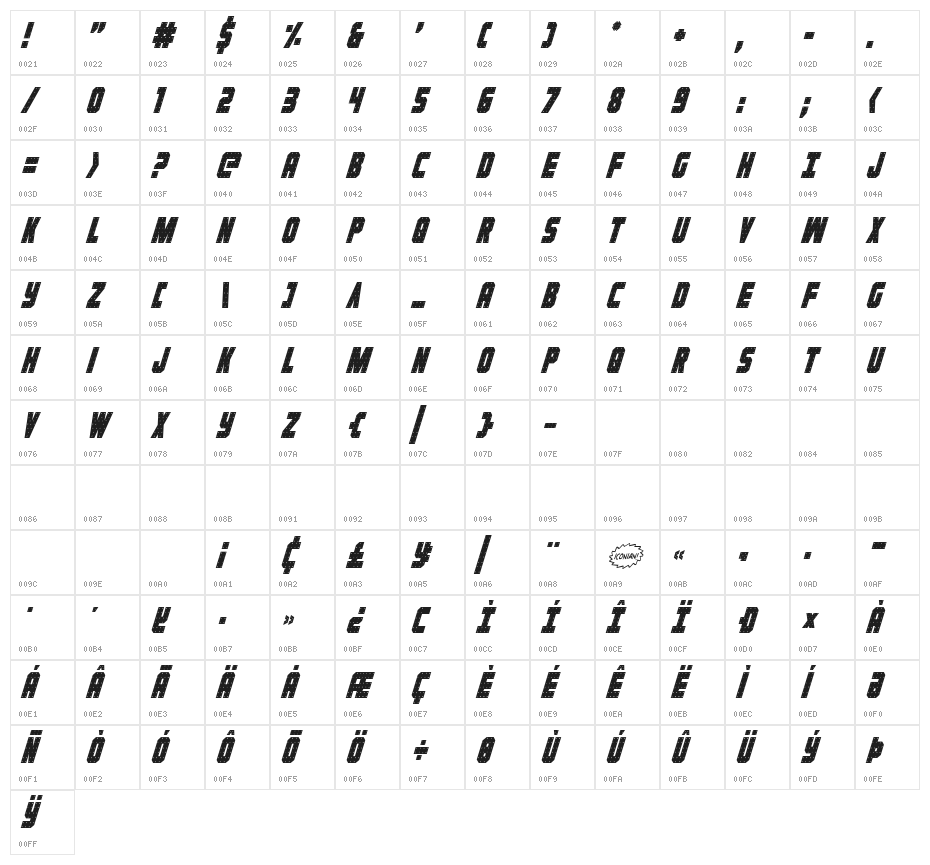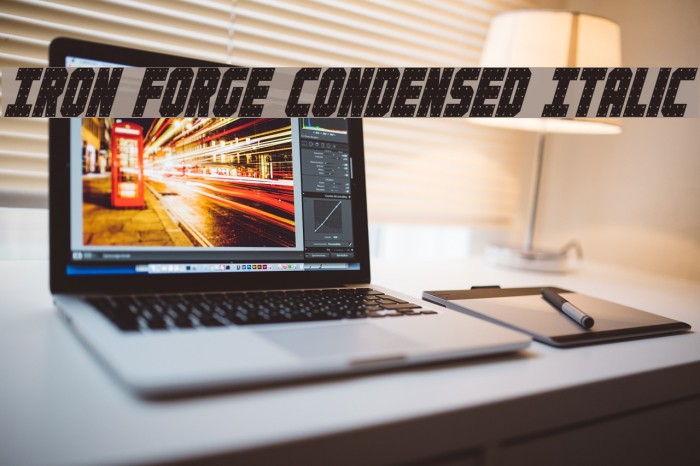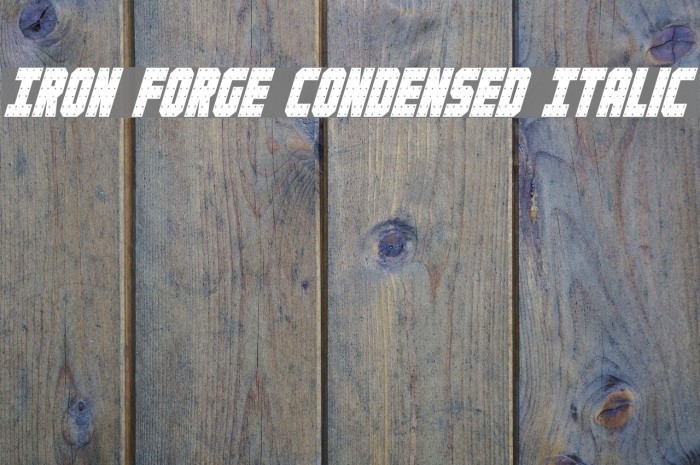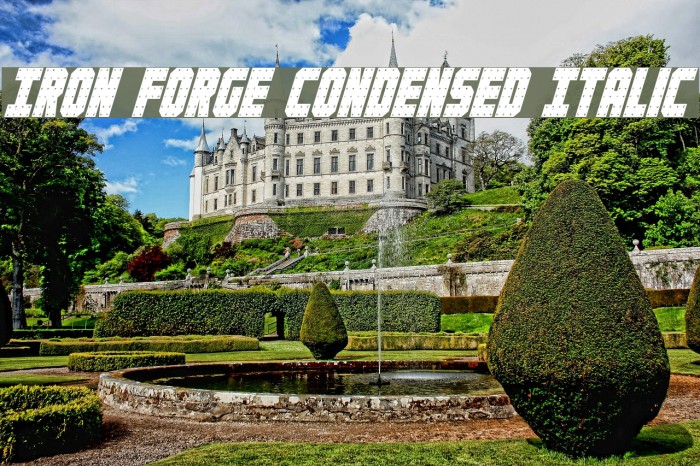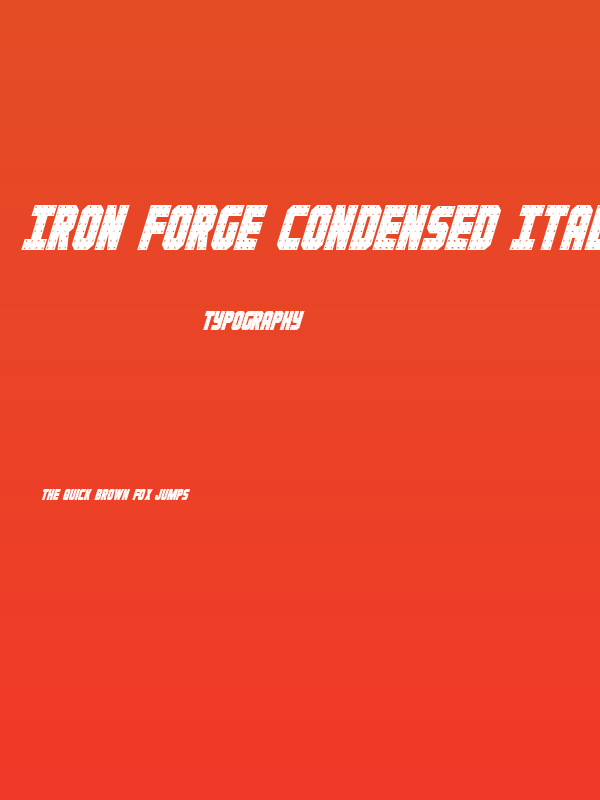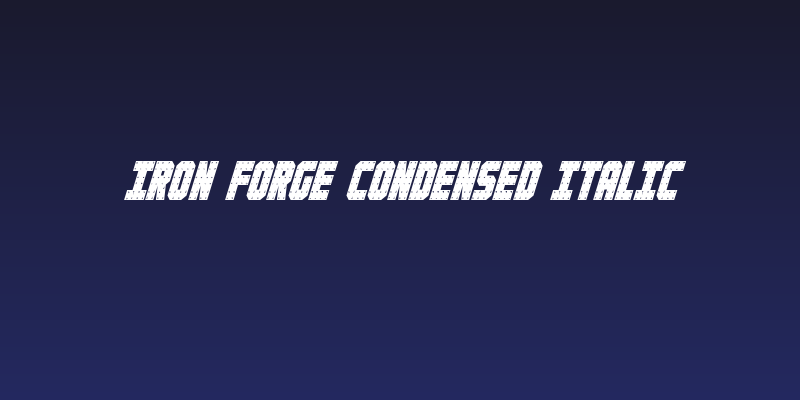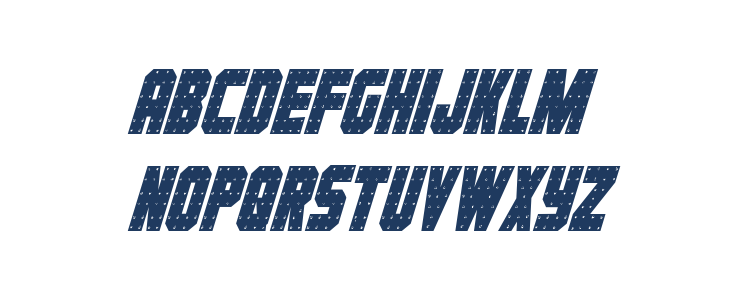
Iron Forge Condensed Italic Font
Iron Forge Condensed Italic Description
This font features a bold and dynamic design with a condensed and italicized style. Each character is crafted with a strong geometric structure, giving it a robust and industrial feel. The letters are tightly spaced, enhancing the compact appearance, while the italic slant adds a sense of motion and urgency. The font includes uppercase and lowercase letters, numbers, and a variety of special characters, all maintaining the same bold and condensed aesthetic. The high contrast in stroke thickness further emphasizes its boldness, making it suitable for impactful and attention-grabbing designs.
| Proposed Projects | Ideal for use in posters, headlines, branding, and any project requiring a strong, impactful typeface. |